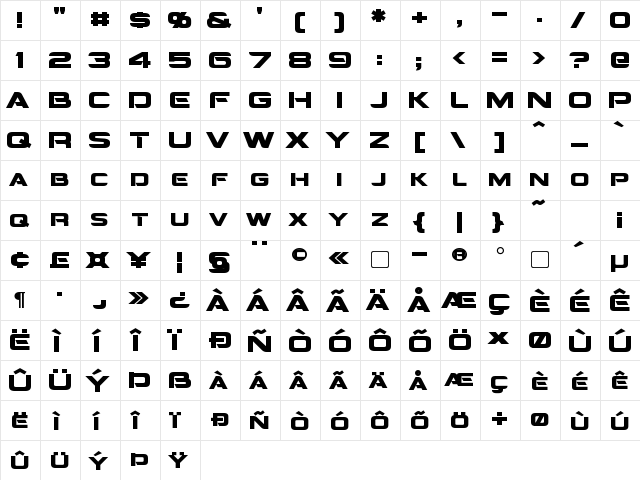
Montalban Bold
| Designer | Neale Davidson |
Design Context for Montalban Typeface
Montalban takes a measured approach to typography — its balanced proportions and neutral character make it a reliable workhorse for both digital and print work. The heavy weight commands attention and anchors typographic hierarchies.